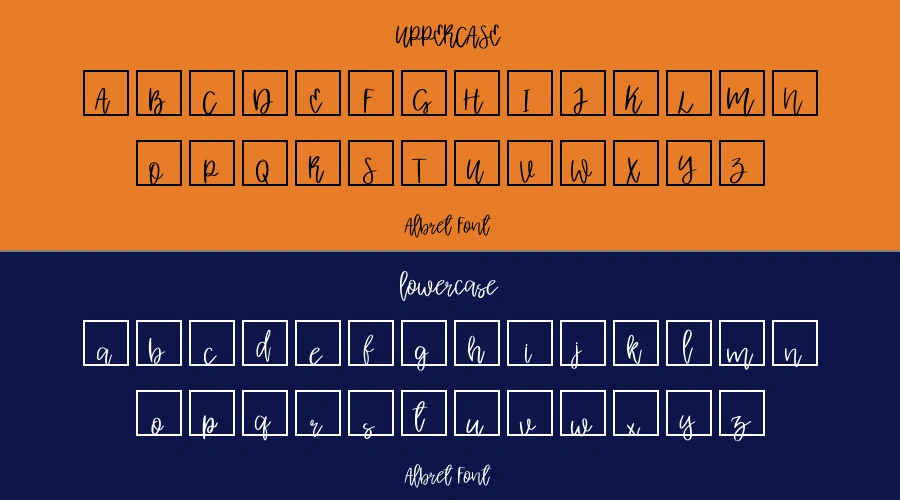
About Albret Font
Designed with precision, Albret Font merges architectural precision with technical precision in every character. This versatility makes it particularly effective for technical manuals, where durability and aesthetic excellence directly impact communication quality. Each letterform demonstrates meticulous craftsmanship.
Technical excellence shines through elements like balanced weights and authentic details, enhancing typographic versatility. In section headers settings, Albret Font proves its worth through superior microfilm readability. The thoughtful execution of proportion and historical context ensures professional results.